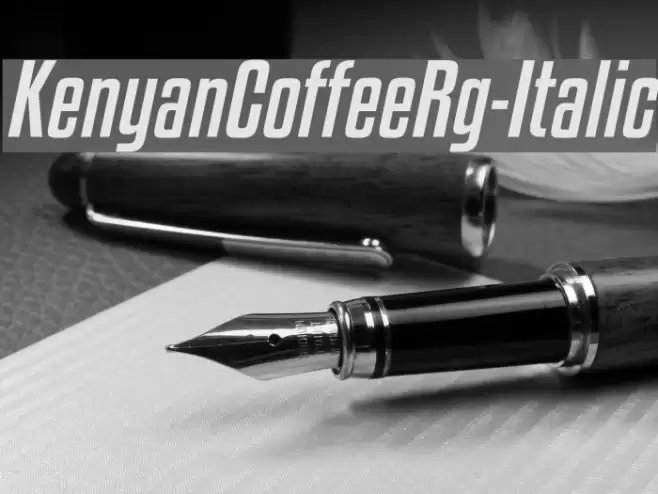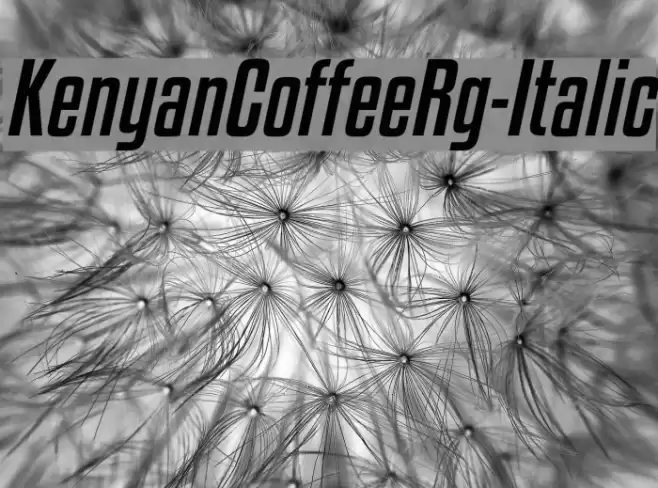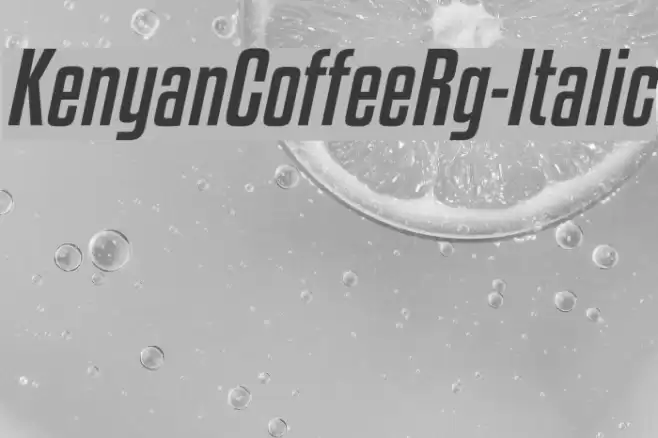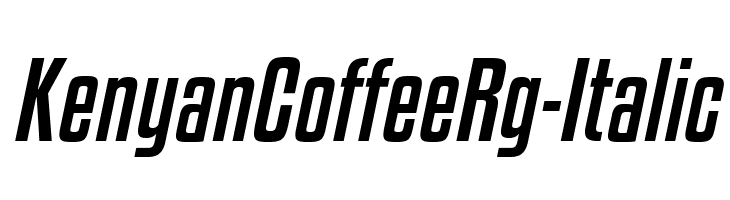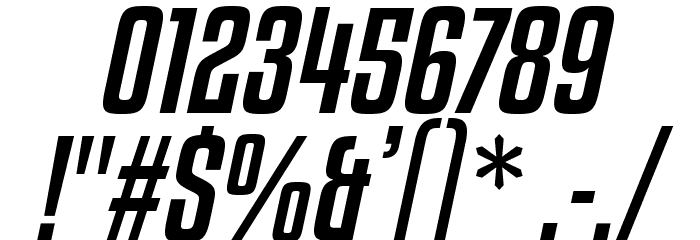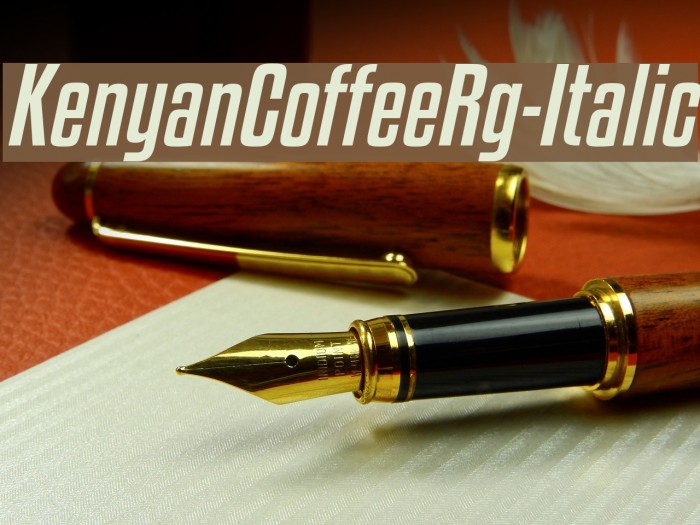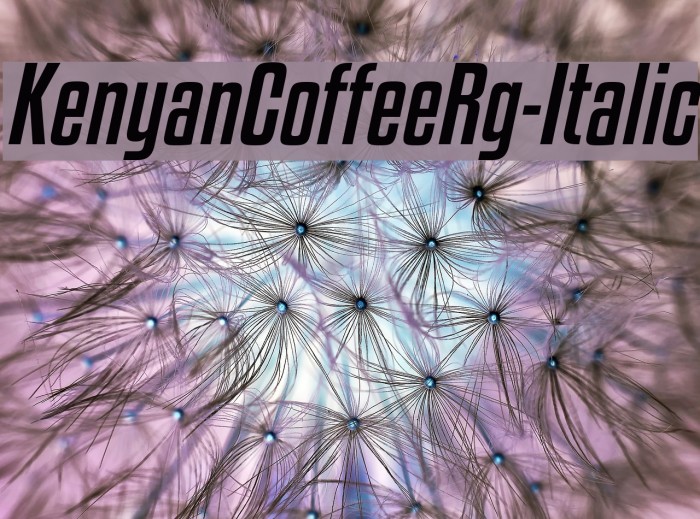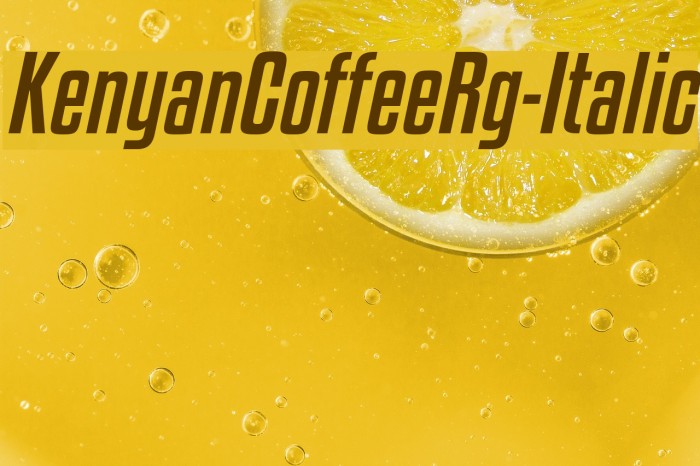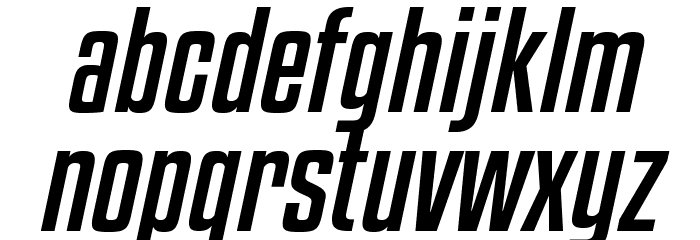
KenyanCoffeeRg-Italic Font
KenyanCoffeeRg-Italic Description
This font exhibits a bold and dynamic style with a strong italic slant, giving it a sense of motion and energy. The characters are tall and narrow, contributing to a condensed appearance that maximizes space efficiency. The strokes are consistent in thickness, providing a uniform look across all characters. The uppercase letters are particularly striking, with sharp angles and clean lines, while the lowercase letters maintain a similar aesthetic but with a slightly softer touch. The numerals are clear and legible, matching the overall boldness of the alphabet. Special characters are well-integrated, maintaining the font's cohesive style.
A bold, italic, and condensed font with a dynamic and energetic style from Uncategorized fonts.
- Proposed Projects: Ideal for sports branding, dynamic posters, modern advertising, and any project requiring a strong visual impact.